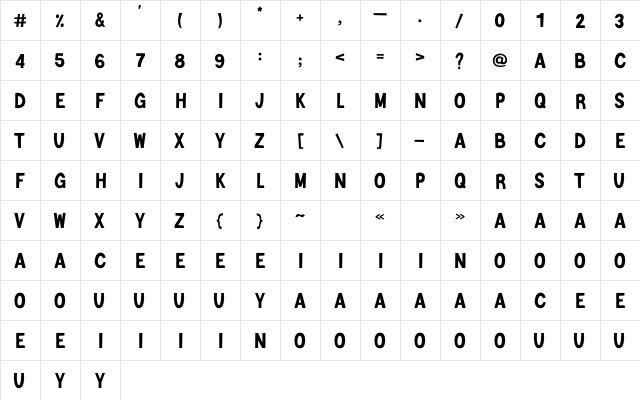
HETIKADemo Regular
Design Context for HETIKADemo Typeface
HETIKADemo offers clean, dependable letterforms without strong stylistic allegiance, making it a practical choice for designers who need flexibility.
Pro Tip: Use HETIKADemo in both headline and body roles to test its range before committing to a single application.